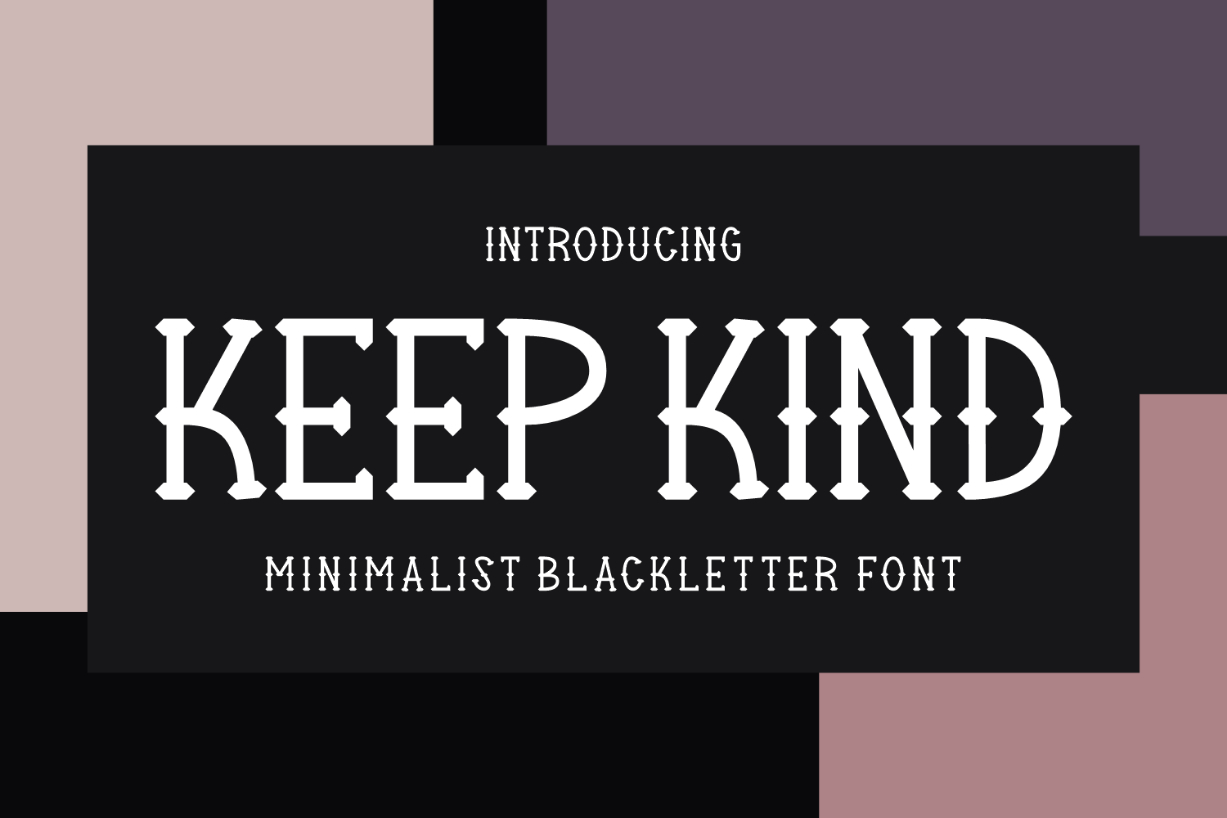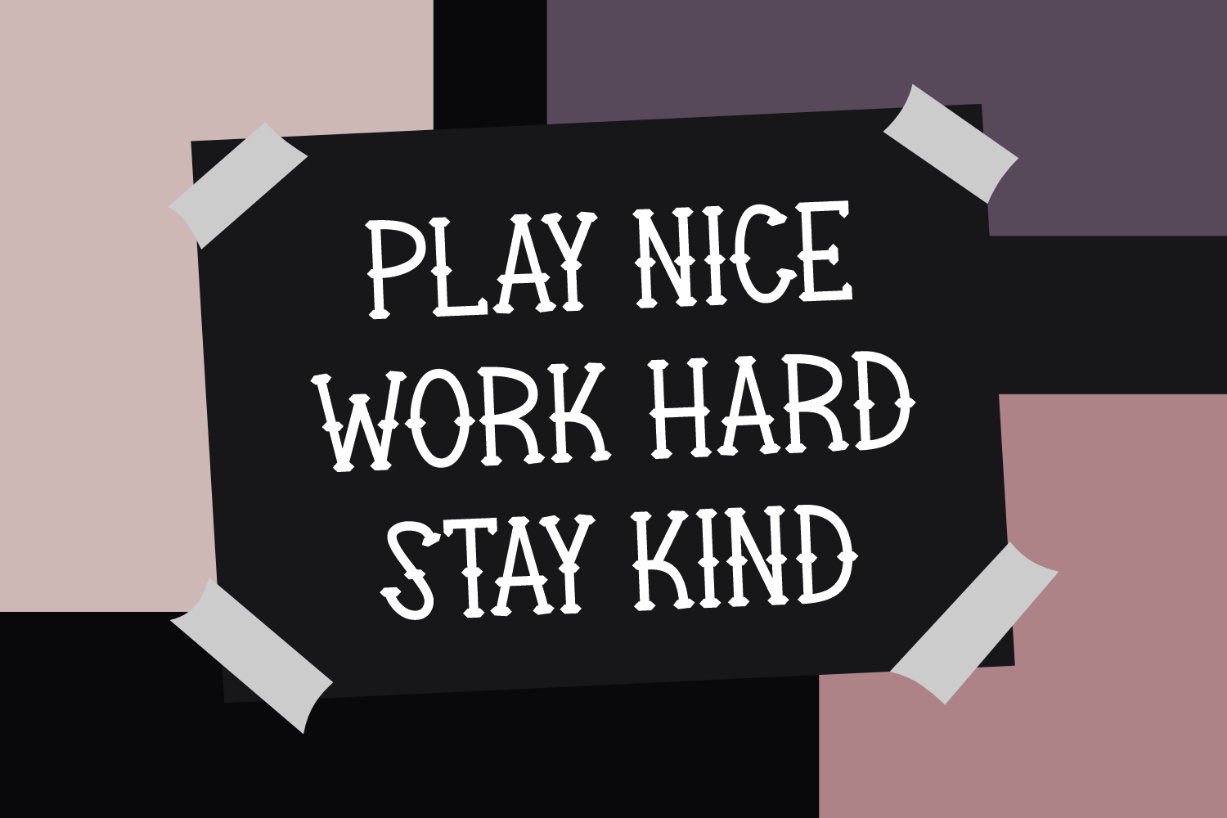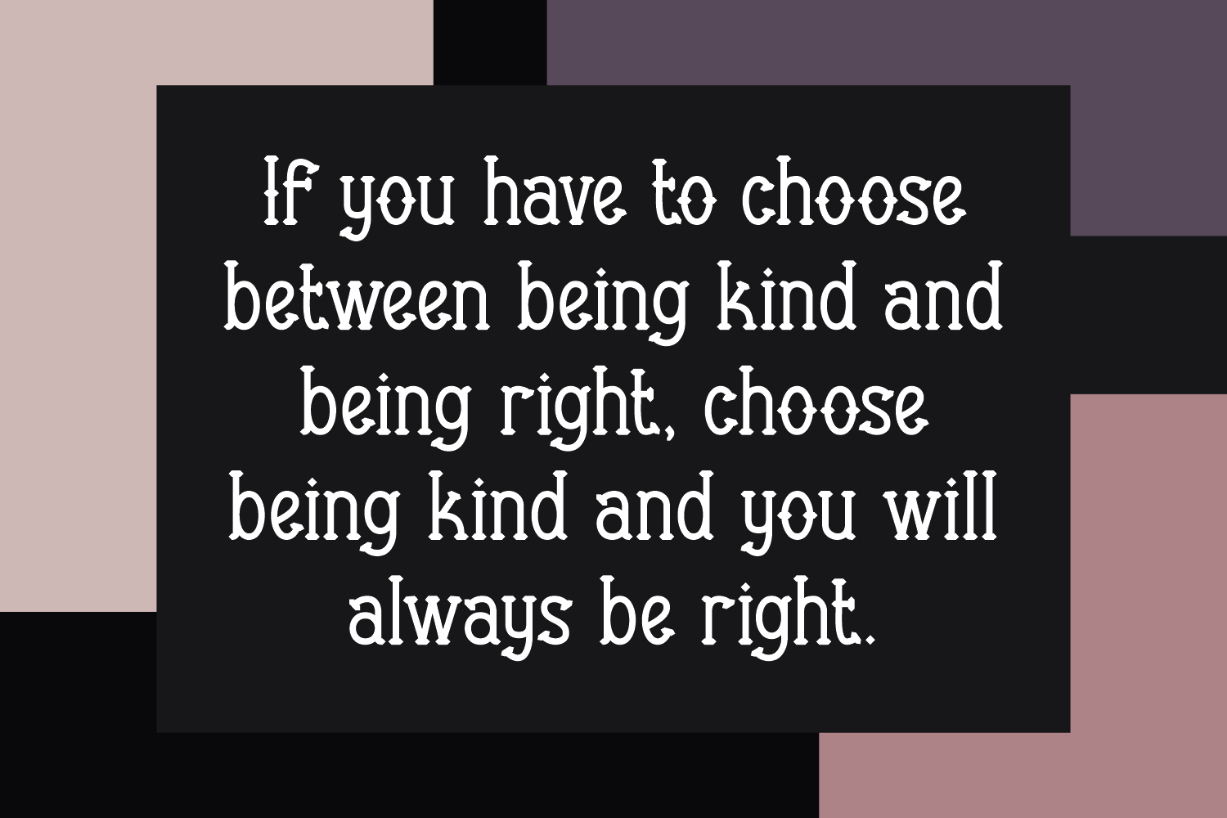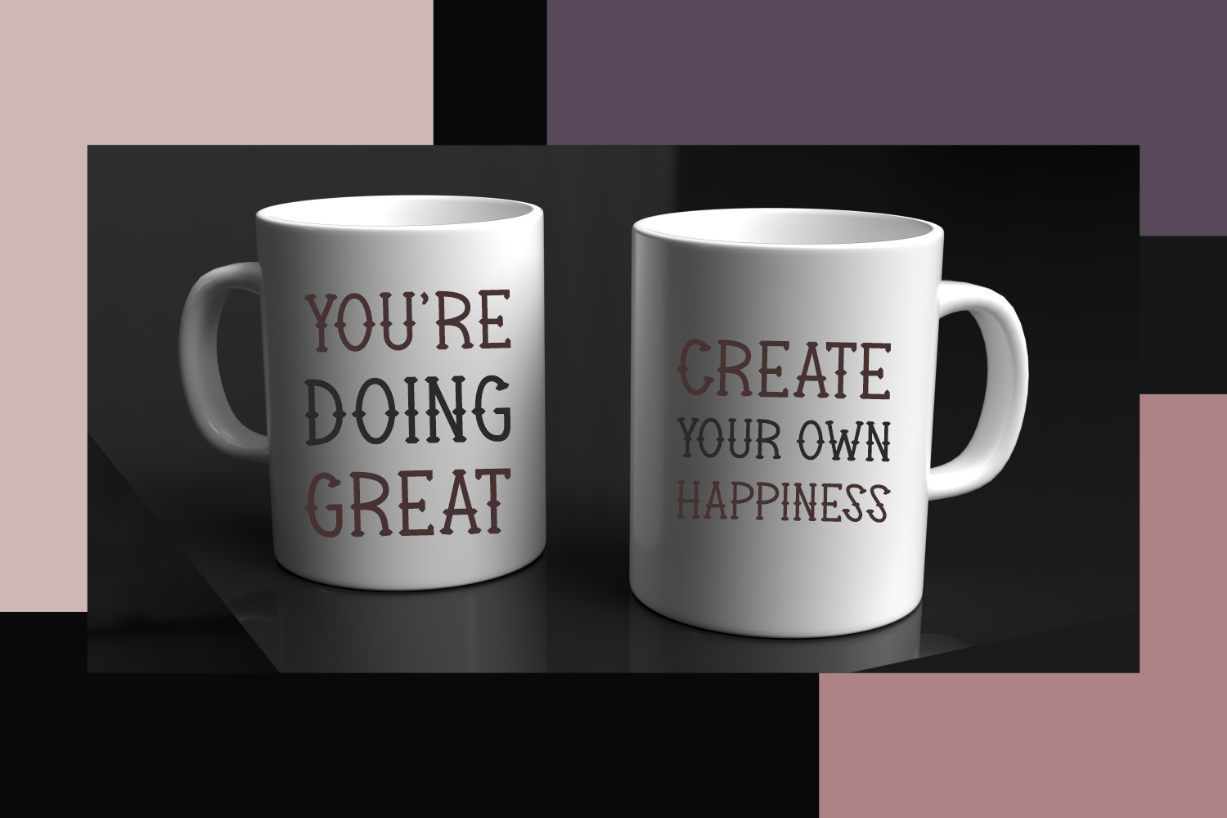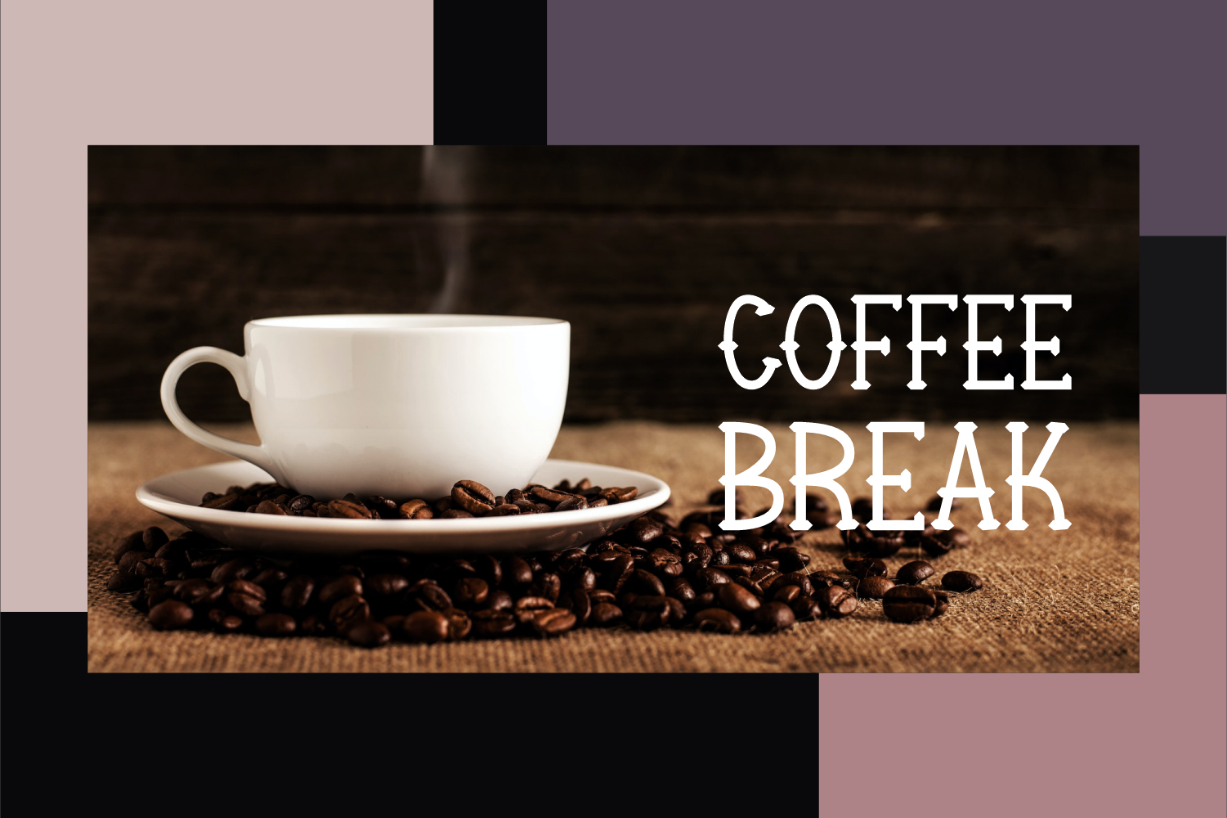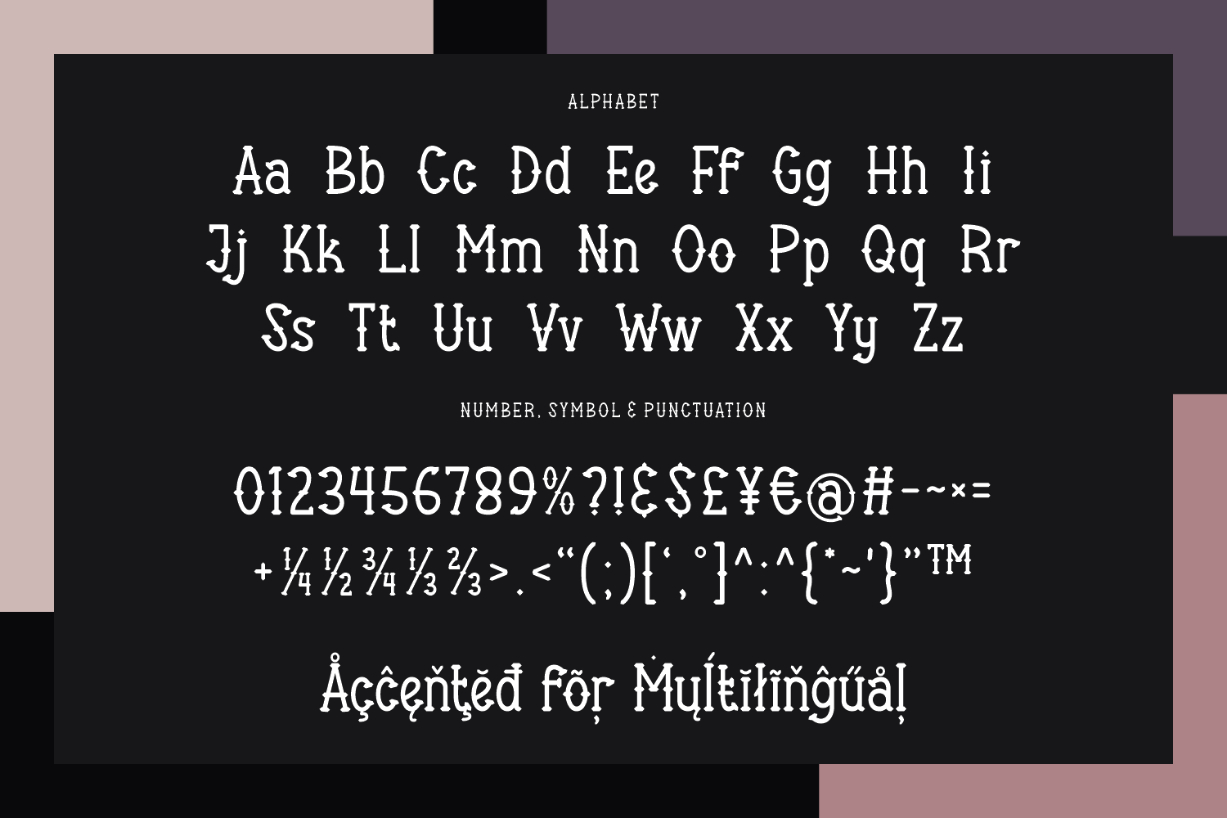
Keep Kind Font
Keep Kind is a modern, minimalist blackletter font. Charming and versatile, this lovely typeface is perfect for bringing your creative ideas to life! You can use it to create stylish posters, product packaging, advertisements, t-shirts, websites, banners, and more.